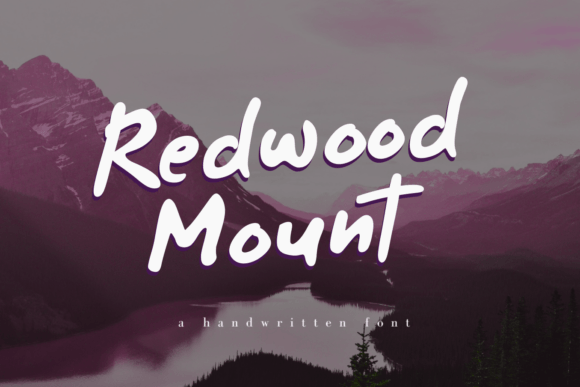
Tread through the woods of creativity with Redwood Mount, the stunning script font inspired by the rugged charm of redwood trees. This font is the perfect union of grandeur and ease, adding a touch of exquisite beauty to your designs. Created by the talented Deedeetype, Redwood Mount captures the essence of handwritten simplicity, giving your projects an air of authenticity.
Immerse yourself in the beauty of this natural font, perfect for designing tattoos that speak to the soul. Embrace the freedom of expression with Redwood Mount, a font that flows along your ideas, turning them into stunning works of art. It's like capturing the essence of a handwritten note, the intimate connection between pen and paper, now translated into the digital realm.
Whether you're creating designs for the wild and free, or expressing the tender emotions of the heart, Redwood Mount is your perfect companion. Its simple, yet captivating strokes will leave a lasting impression, drawing the eyes of your audience. Redwood Mount is not just a font; it's an experience, an invitation to let your creativity soar.
Embrace the spirit of Redwood Mount, let your ideas take flight, and witness the transformation of your designs. With its natural flow and elegant style, this font will take your projects to new heights. Discover the beauty of simplicity with Redwood Mount, the font that captivates hearts and ignites imaginations.